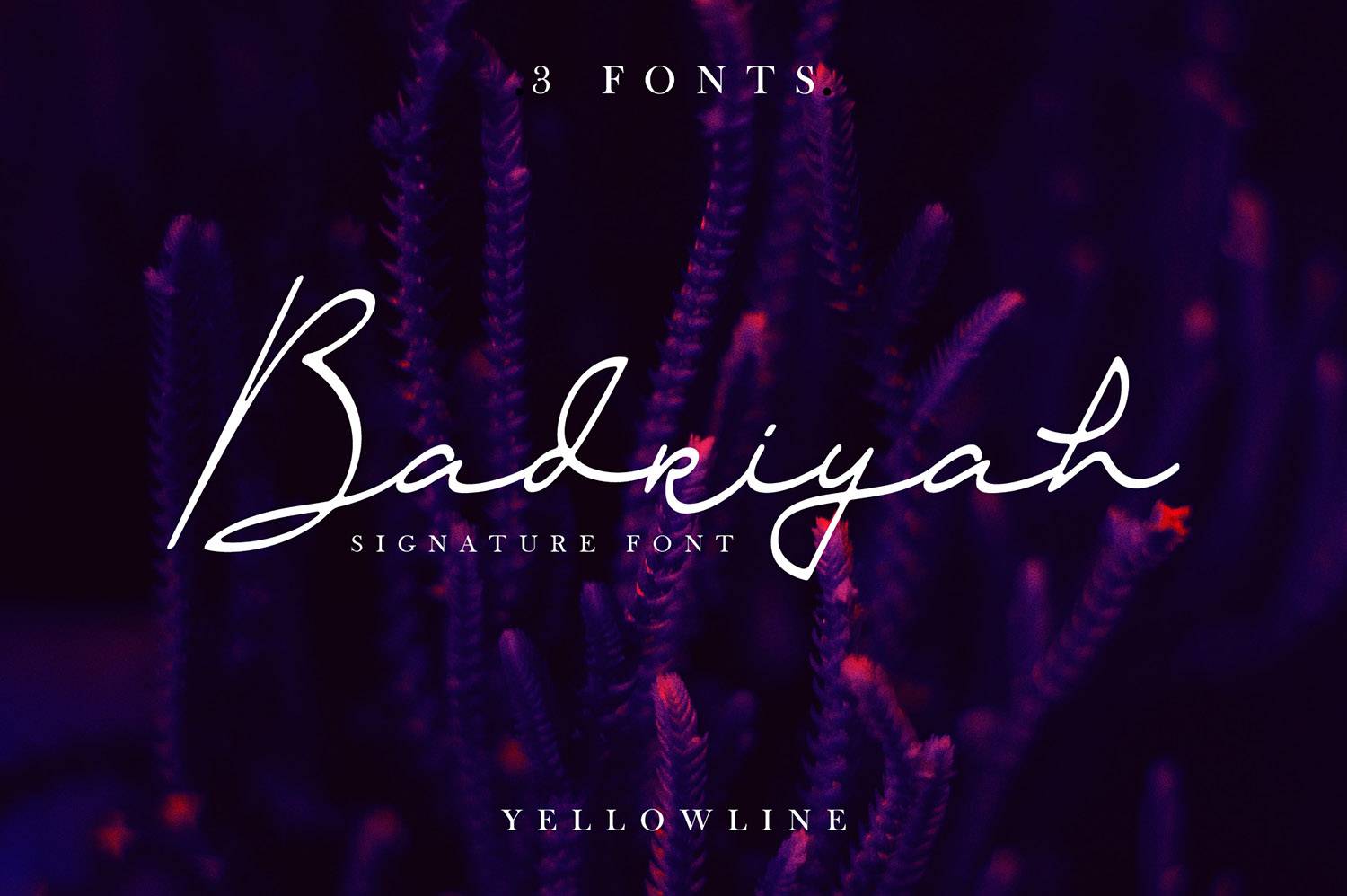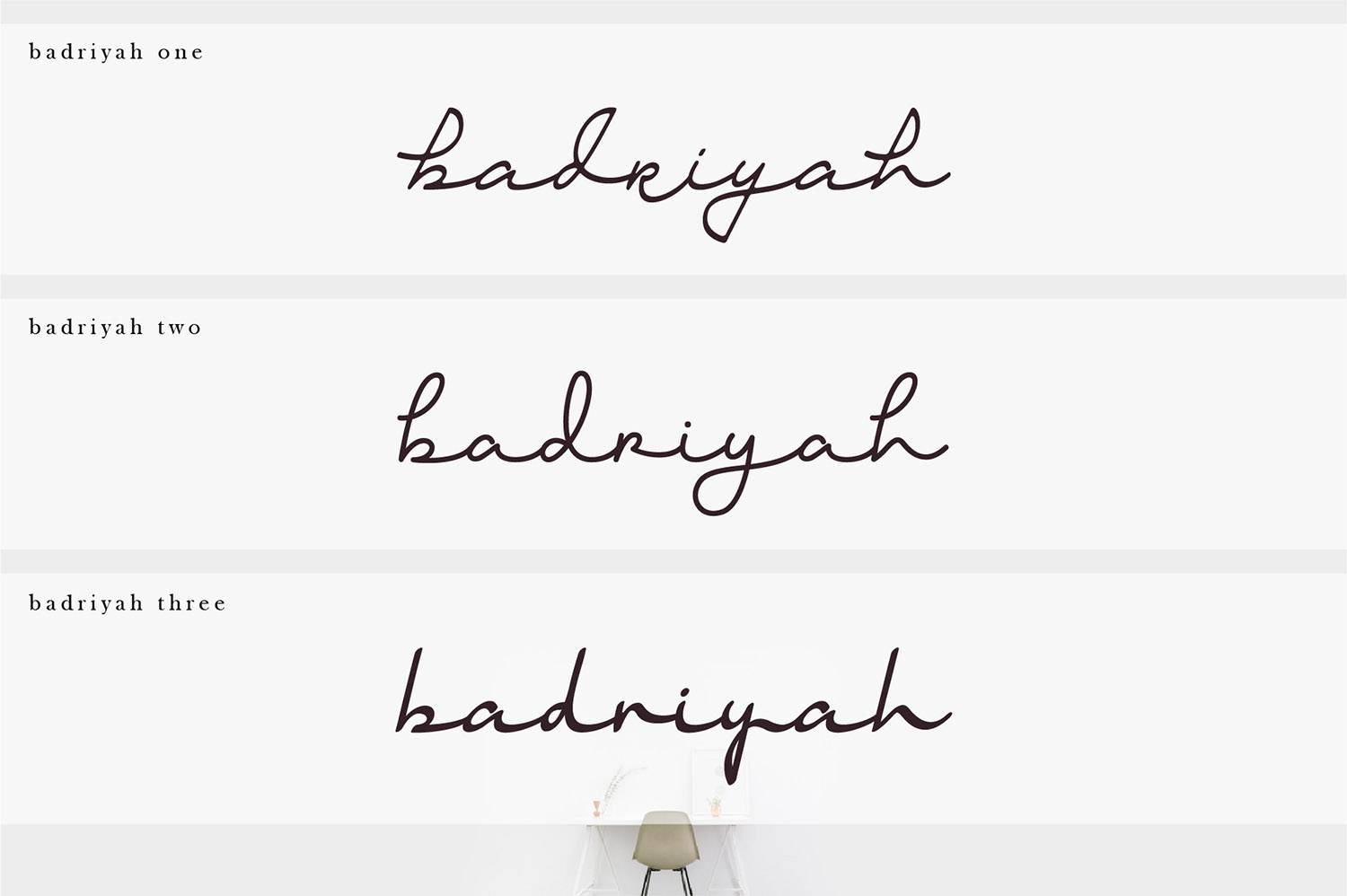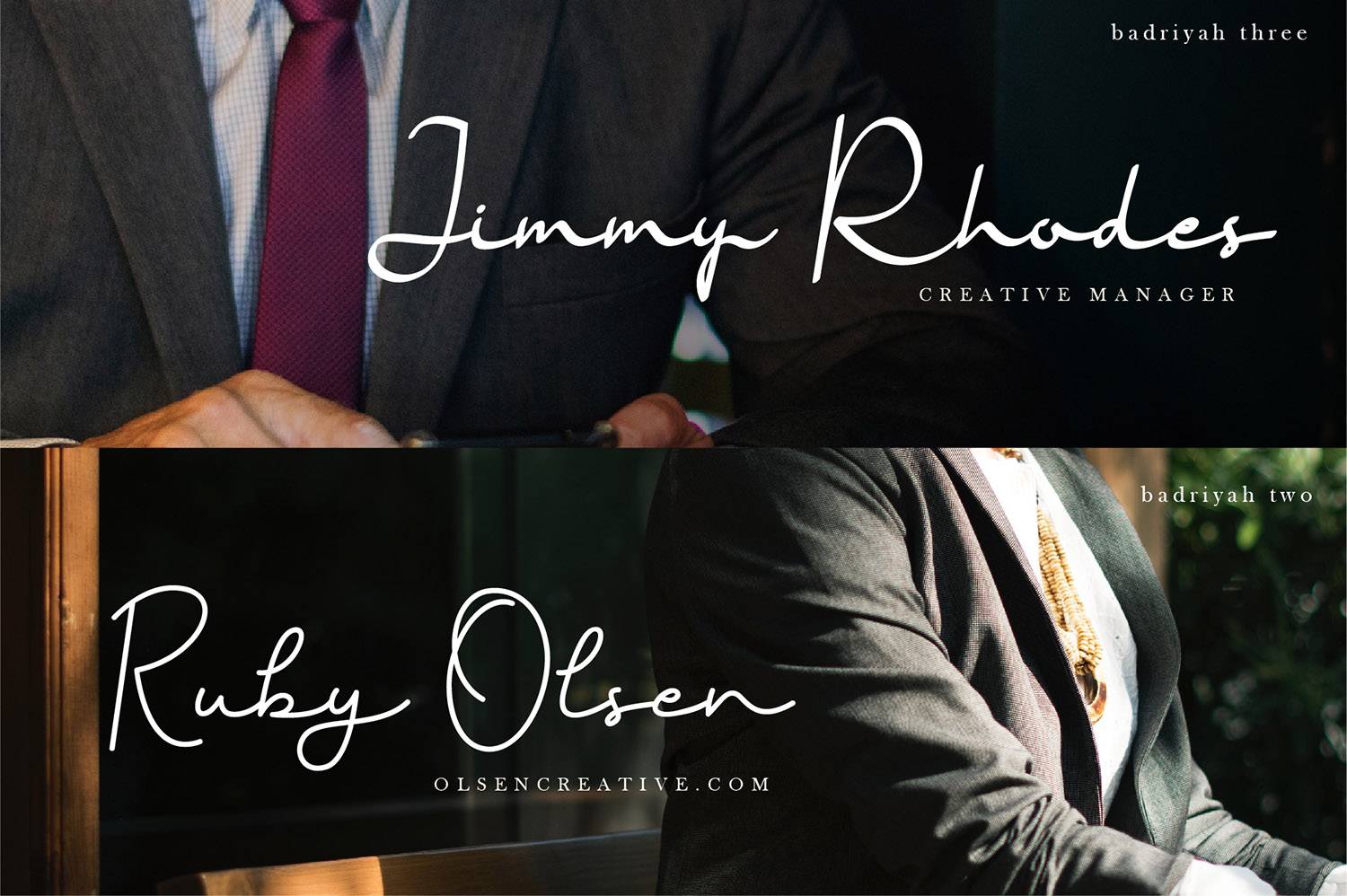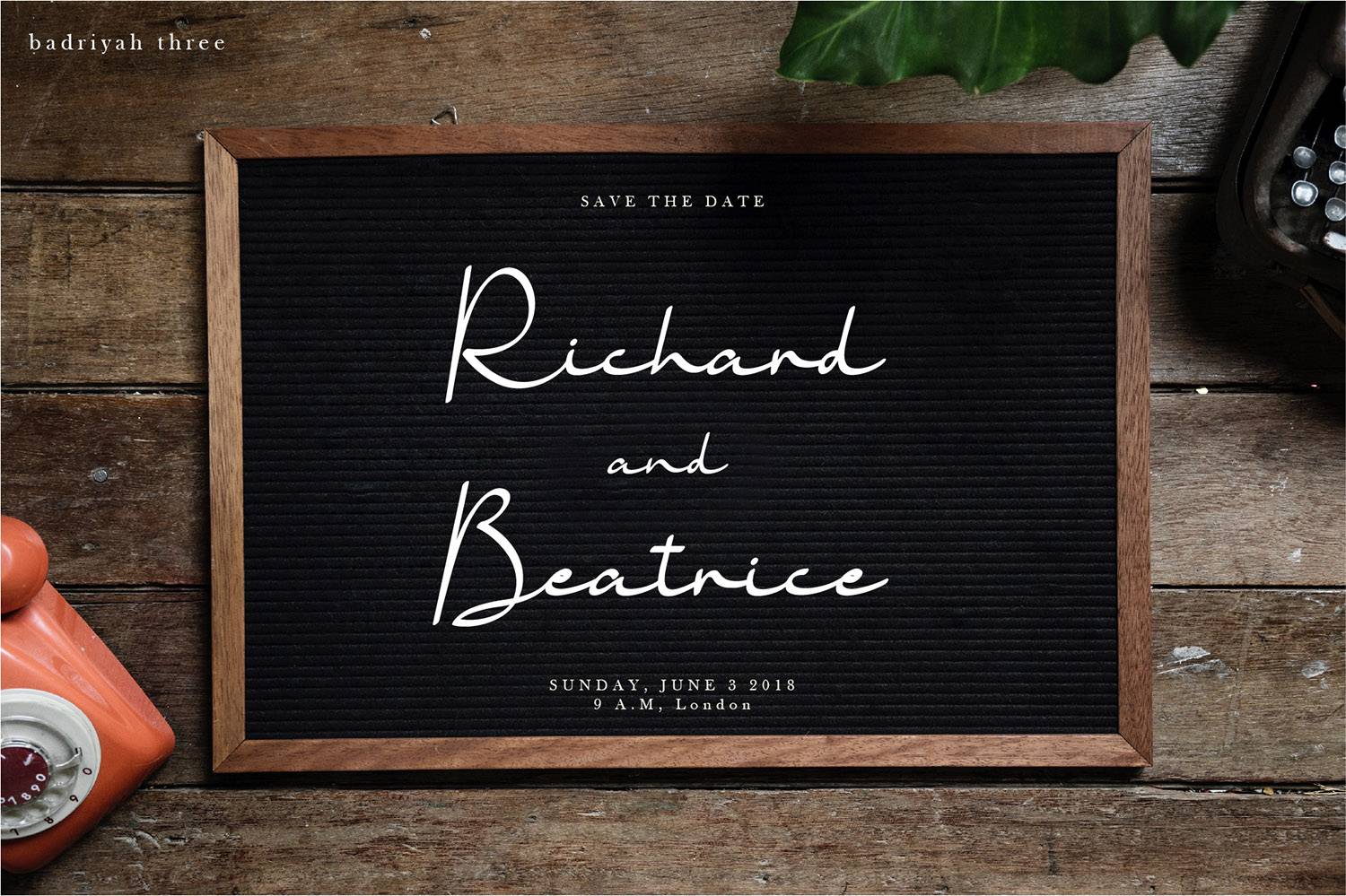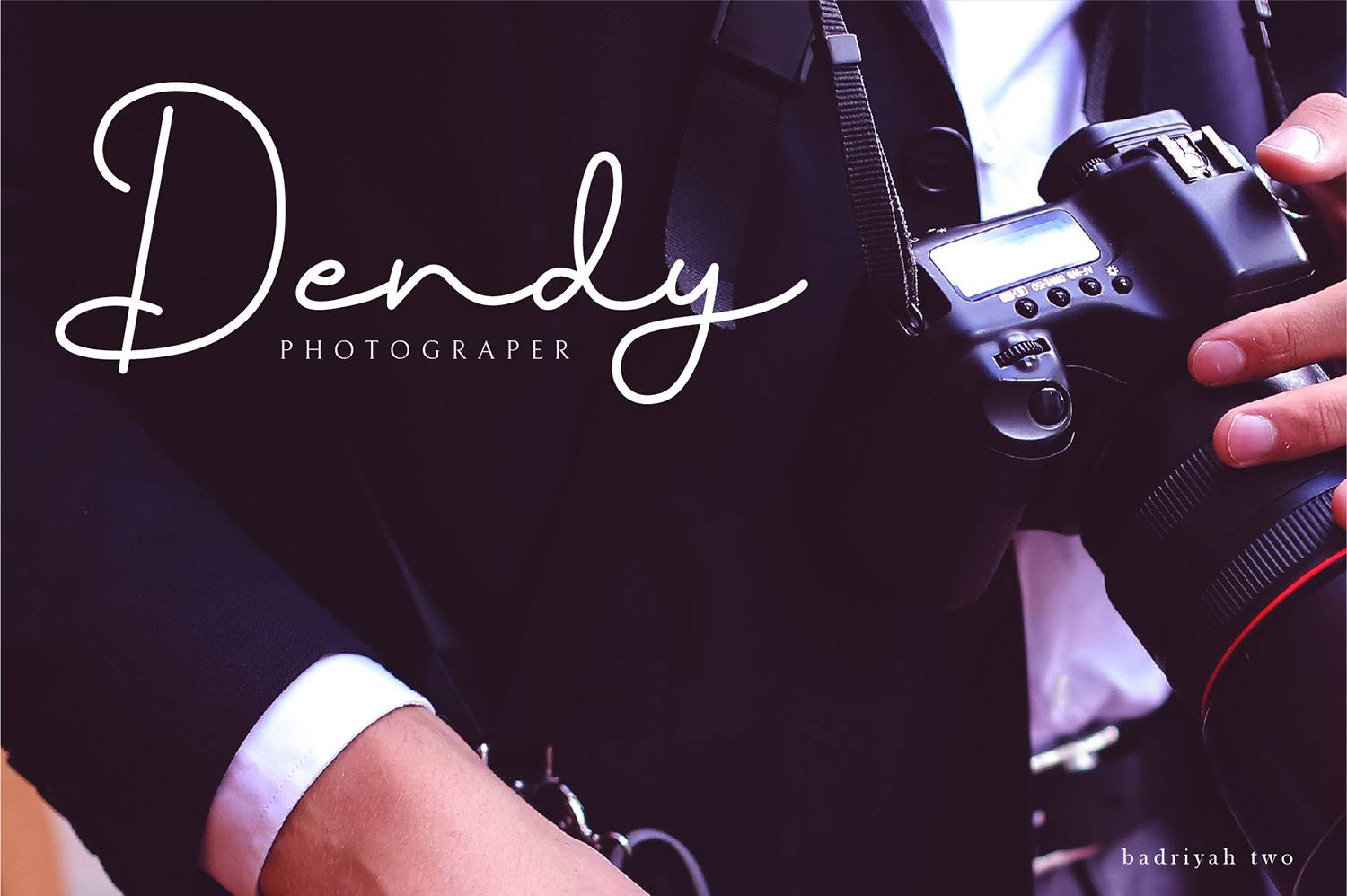
Badriyah Two is a delicate, handwritten script font with a thin, elegant stroke that creates a light and airy feel. Its irregular letterforms and playful loops give it a personal, casual charm, making it ideal for creative branding, invitations, and modern, stylish designs that seek a friendly yet refined touch. This font stands out in projects needing a unique, approachable vibe with a hint of sophistication.
Badriyah Font
About Badriyah Font